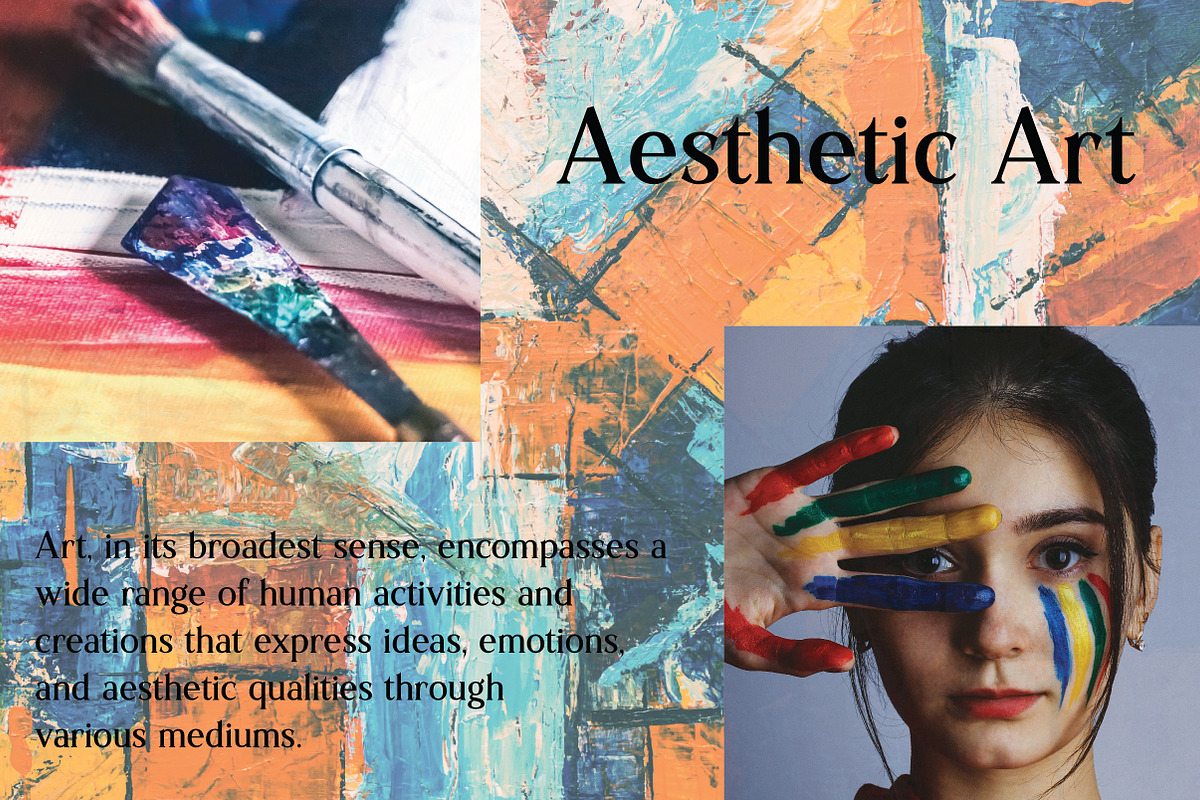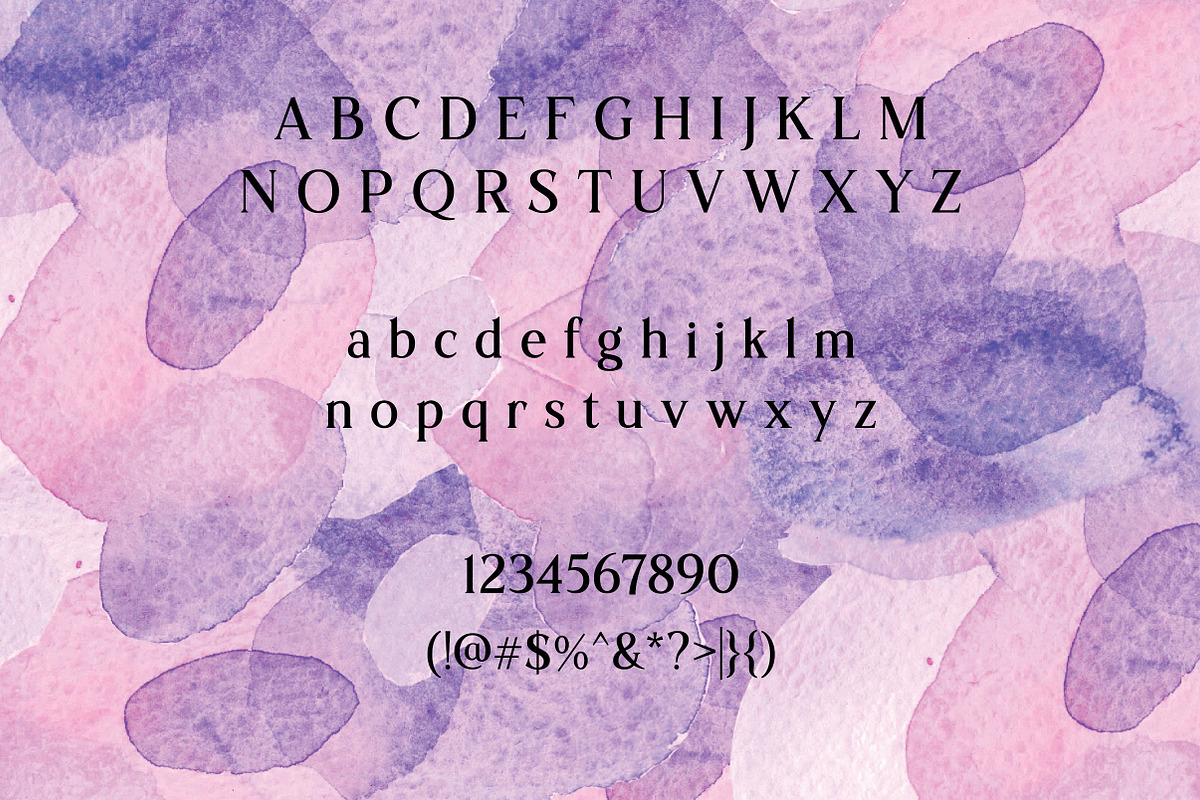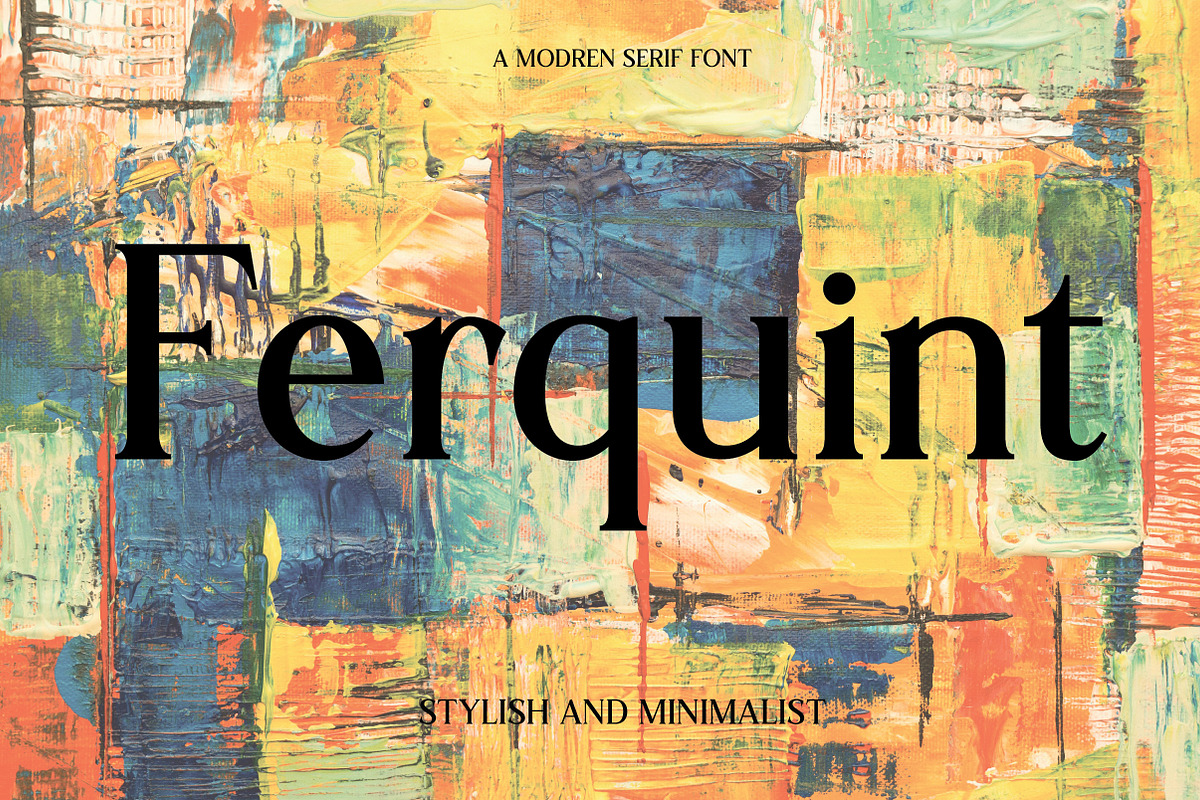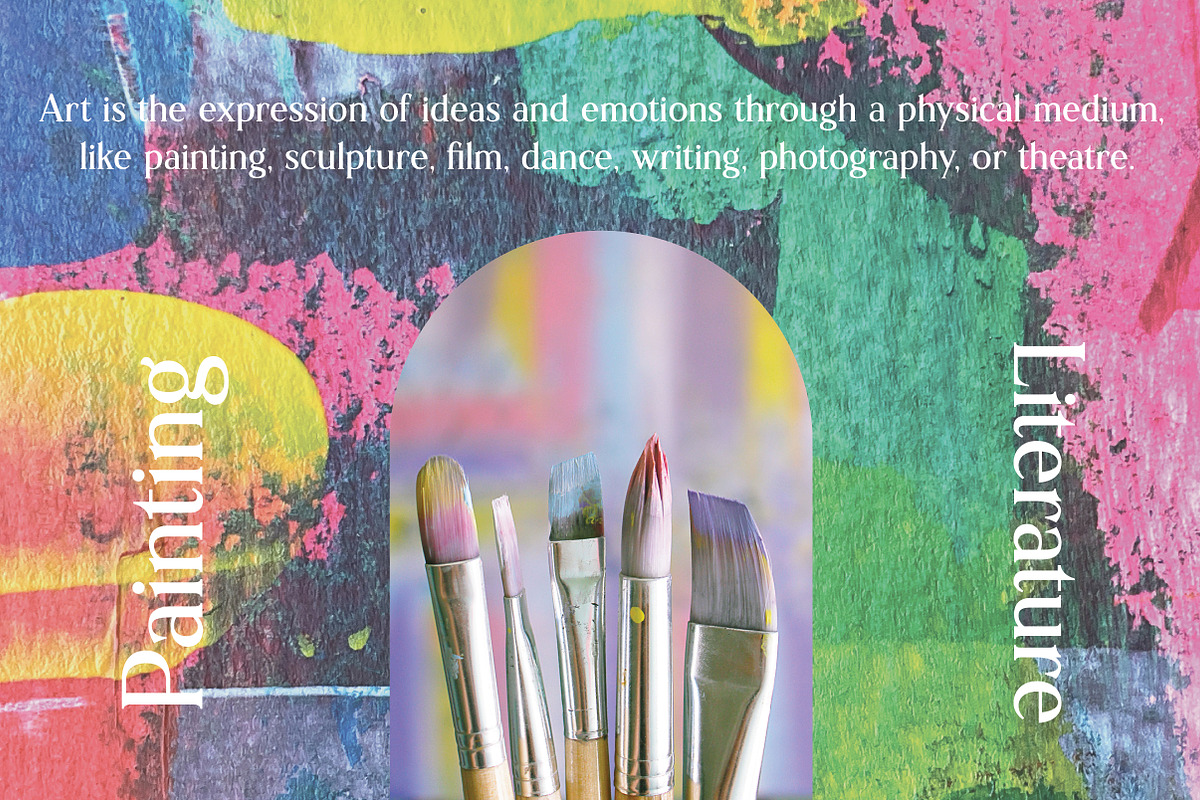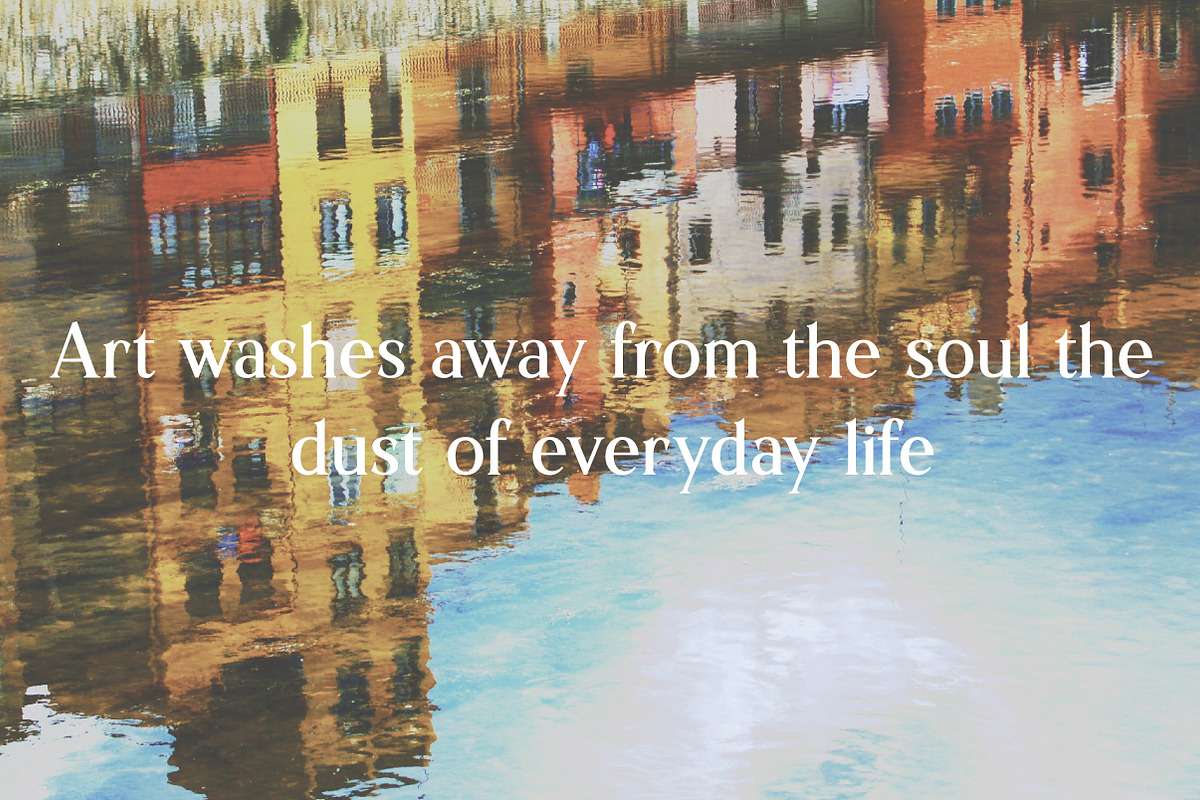
Ferquint | Stylish Modern Serif Type
Ferquint is a stylish and modern serif typeface crafted to elevate your design projects with elegance, clarity, and structure. The Regular style features crisp serifs, clean curves, and balanced proportions—making it a perfect fit for branding, editorial layouts, packaging, logos, web design, and social media graphics. Designed for versatility and legibility, Ferquint performs beautifully in both headlines and body copy. Its classic charm blended with a contemporary edge makes it a powerful choice for both digital and print use.
Ferquint is the ideal serif font for designers seeking a refined, modern typeface that pairs elegance with everyday usability.